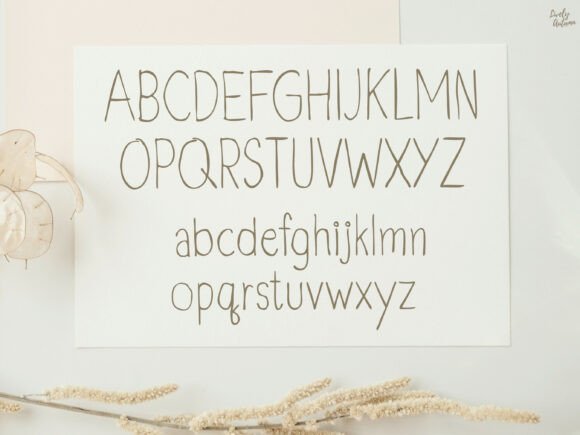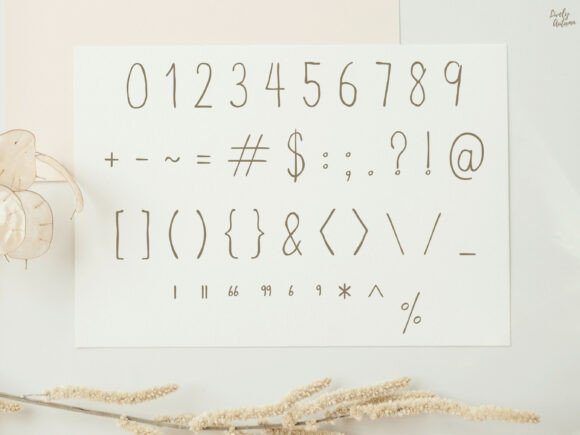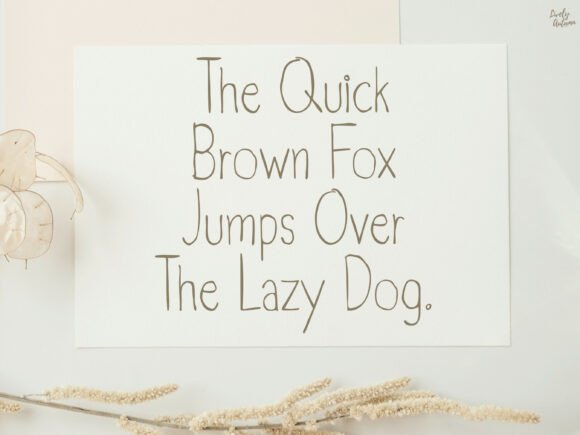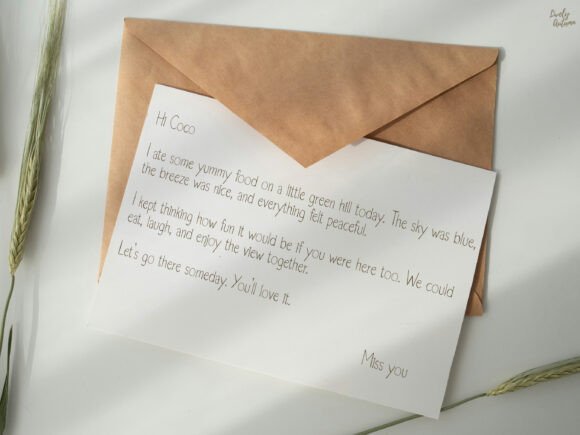
Introduction to Dearletter Font
DearLetter is a simple, thin handwritten font that looks like it was written with ink.
Perfect for your personal projects and various projects From invitations to posters, social media graphics, journals, and much more.
Key Features of Dearletter Font
Why Choose Dearletter Font?
Dearletter Font offers exceptional quality and versatility, making it a valuable addition to your design toolkit. Whether you’re creating for personal projects or commercial use, Dearletter Font delivers professional results.